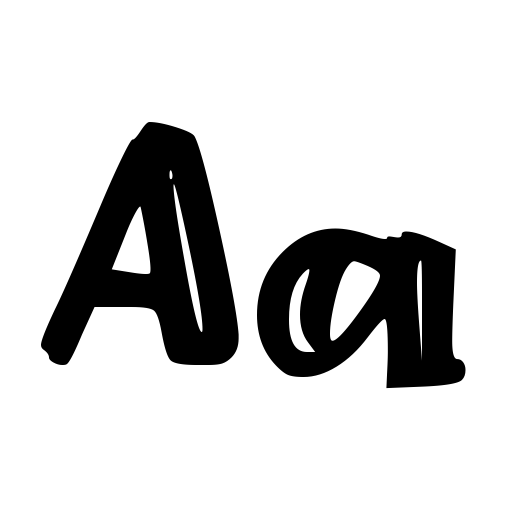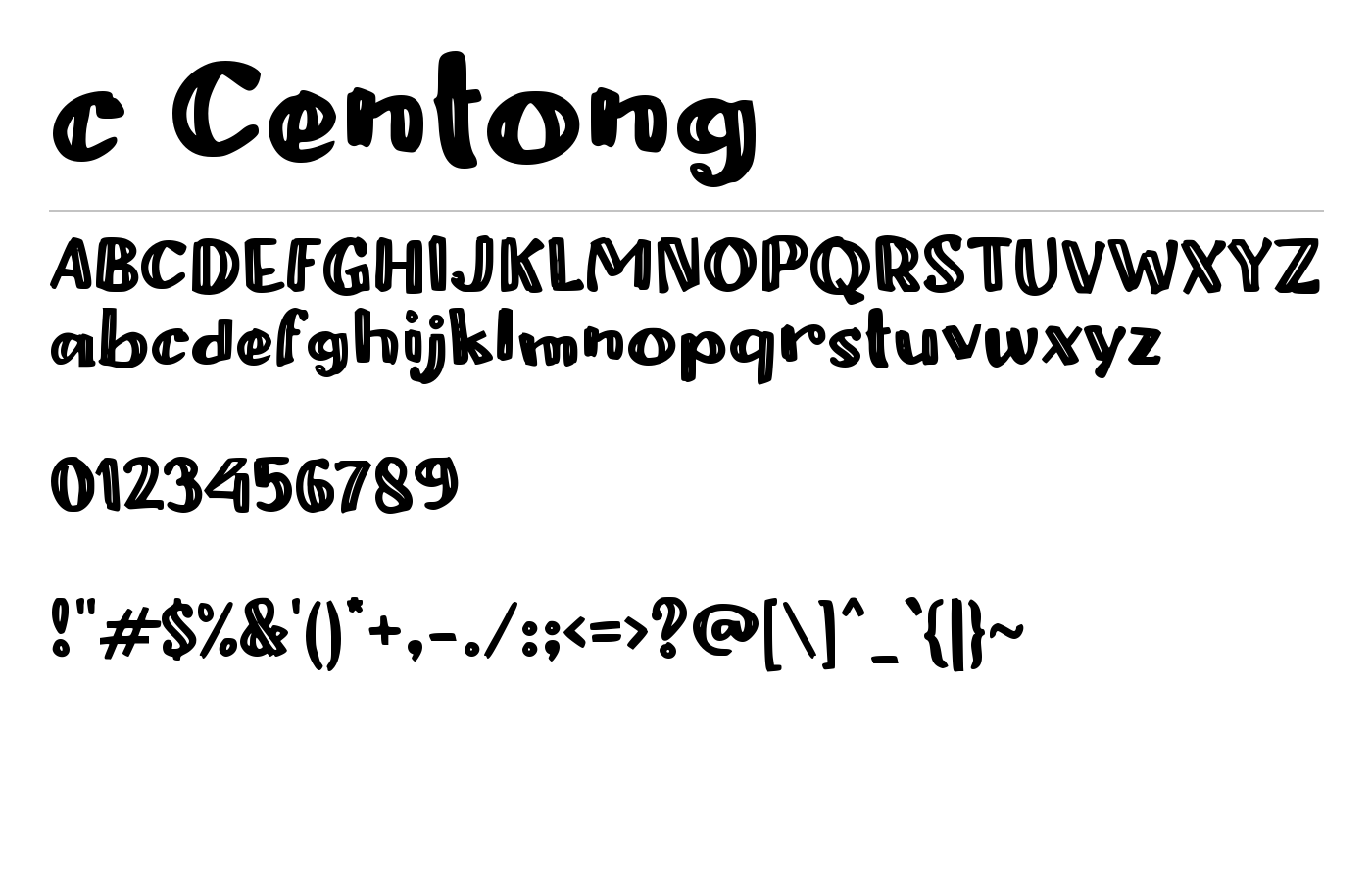
c Centong is a playful, hand-drawn sans serif font with a bold weight and irregular, organic letterforms that give it a lively, informal feel. Its quirky shapes and moderate contrast make it ideal for creative, fun branding and casual headline uses where personality and warmth are desired. This font works well in children's books, party invitations, and any design needing a friendly, approachable touch.
c Centong Font